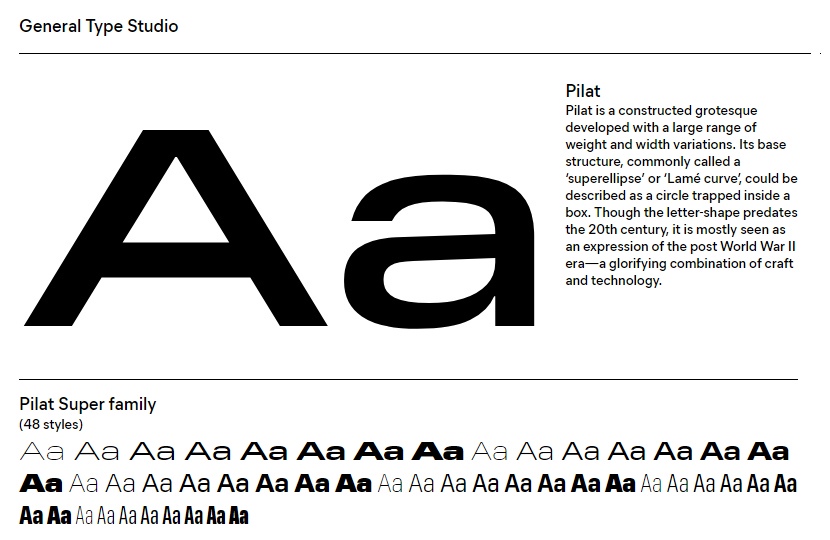
Pilat Font
Pilat Font is perfect for fitness studio branding, wellness center materials, mindful living campaigns, yoga instructor communications, health coaching presentations, meditation app interfaces, holistic therapy signage, mind-body wellness programs, spiritual retreat marketing, and balanced lifestyle publications.
What makes Pilat Font so exciting is its exceptional embodiment of balance, strength, and mindful precision that captures the core principles of physical and mental wellness through harmonious typographic expression. This thoughtfully crafted typeface features controlled letterforms with centered proportions and disciplined character variations that immediately convey stability, focus, and the purposeful alignment of body and mind. The font's balanced construction and wellness-focused aesthetic create an instant sense of inner strength and mindful awareness, making it ideal for projects that need to communicate physical wellness, mental clarity, and the transformative power of mindful movement to audiences seeking holistic health solutions and meaningful lifestyle improvements.
The Pilat Font family typically includes multiple balanced weights and wellness styles, often featuring light, regular, and medium variations along with centered italic versions. Wellness font collections frequently offer additional mindful elements such as balance symbols, wellness ornaments, and harmony indicators that enhance the holistic aesthetic and provide designers with comprehensive tools for creating health-focused and spiritually aligned communications.
The wellness-focused nature of Pilat Font makes it particularly effective for targeting demographics that prioritize holistic health and mindful living in their personal wellness journeys. Wellness marketers and fitness professionals will find this font especially valuable for materials that must establish immediate health credibility and connect with audiences seeking authentic wellness solutions and meaningful lifestyle transformations.
What distinguishes Pilat Font is its ability to convey physical strength while maintaining the gentle mindfulness essential for effective wellness communication. This balanced characteristic makes it suitable for both intensive fitness applications and gentle therapeutic contexts where projecting competence and compassion must work together harmoniously.
Professional designers appreciate that Pilat Font brings invaluable wellness credibility to projects across industries including fitness training, holistic health, mindfulness education, and therapeutic services. Its balanced character and wellness appeal make it essential for organizations whose mission centers on helping others achieve physical strength, mental clarity, and overall life balance.
The mindful precision of Pilat Font ensures consistent wellness messaging across all health-focused communication applications while honoring the sacred relationship between physical and mental well-being.